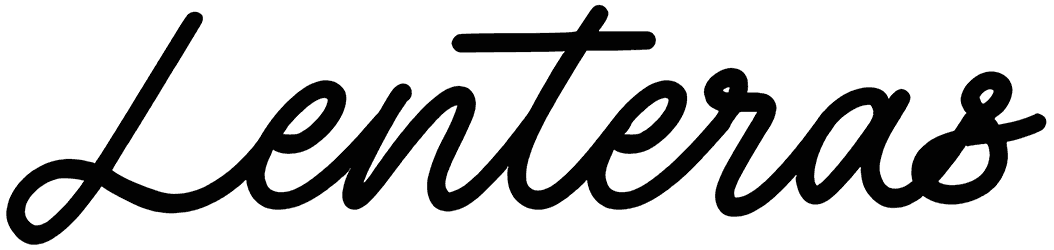
Lenteras Font
Giving a natural and smooth mood to your text will provide you with a nice chance to have a friendly and elegant result, and this handwritten font has the potential to do it.
Lenteras font has all of the characters, and it will make it a perfect selection for varied short or long texts. Adorn a beach restaurant sign, or the like, with this neon font and enjoy the outcome.